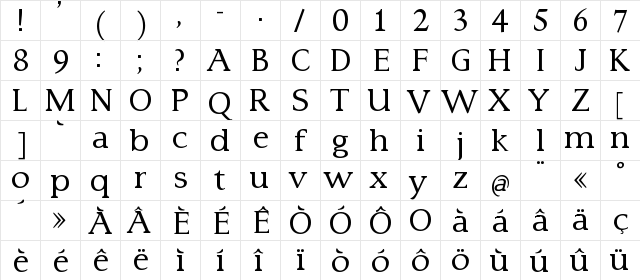
Typo3 Medium
Design Context for Typo3 Typeface
Typo3 takes a measured approach to typography — its balanced proportions and neutral character make it a reliable workhorse for both digital and print work.
Pro Tip: Pair Typo3 with a font of contrasting weight or personality to build a more expressive typographic hierarchy.